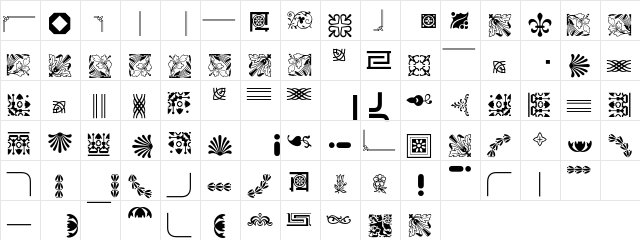
BordersOrnament 4 Regular
Design Context for BordersOrnament 4 Typeface
BordersOrnament 4 is built around its visual character rather than neutral utility — its distinctive forms are designed to make an impression at display sizes.
Font Pairing: Pair with a clean neutral sans-serif for body copy to let BordersOrnament 4's character lead without overwhelming the composition.
Pro Tip: Treat BordersOrnament 4 as the centrepiece of your typographic hierarchy. One strong heading set in a decorative face can carry an entire layout.